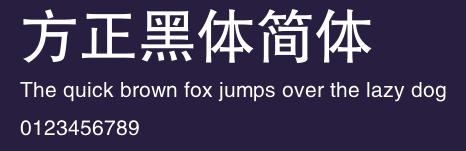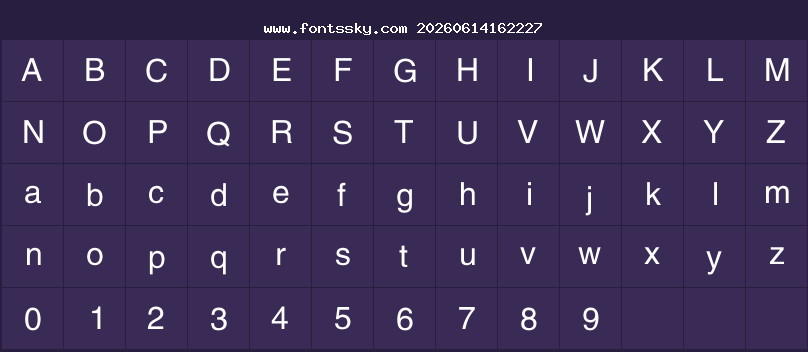
方正黑体简体 Preview
About 方正黑体简体.ttf
方正黑体简体.ttf is a modern, elegant sans-serif font designed for ultimate readability and visual harmony. Perfect for branding, headlines, web design, and print materials.